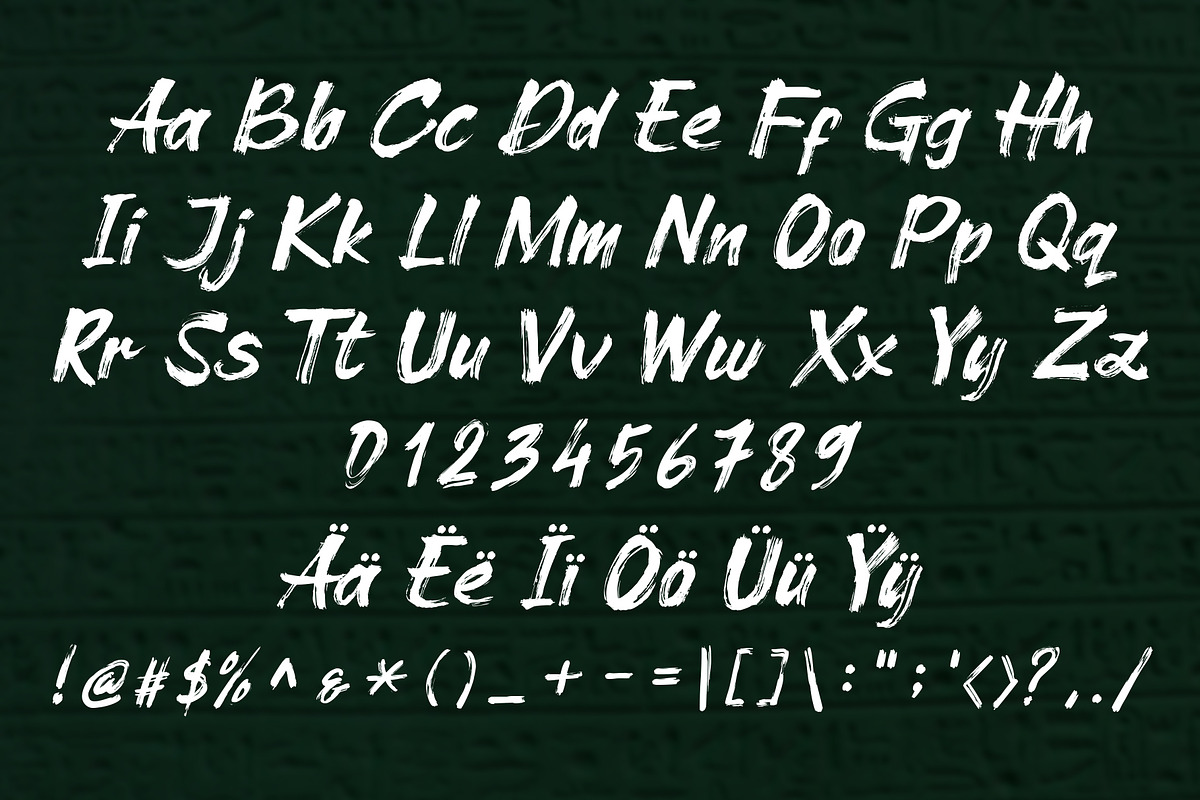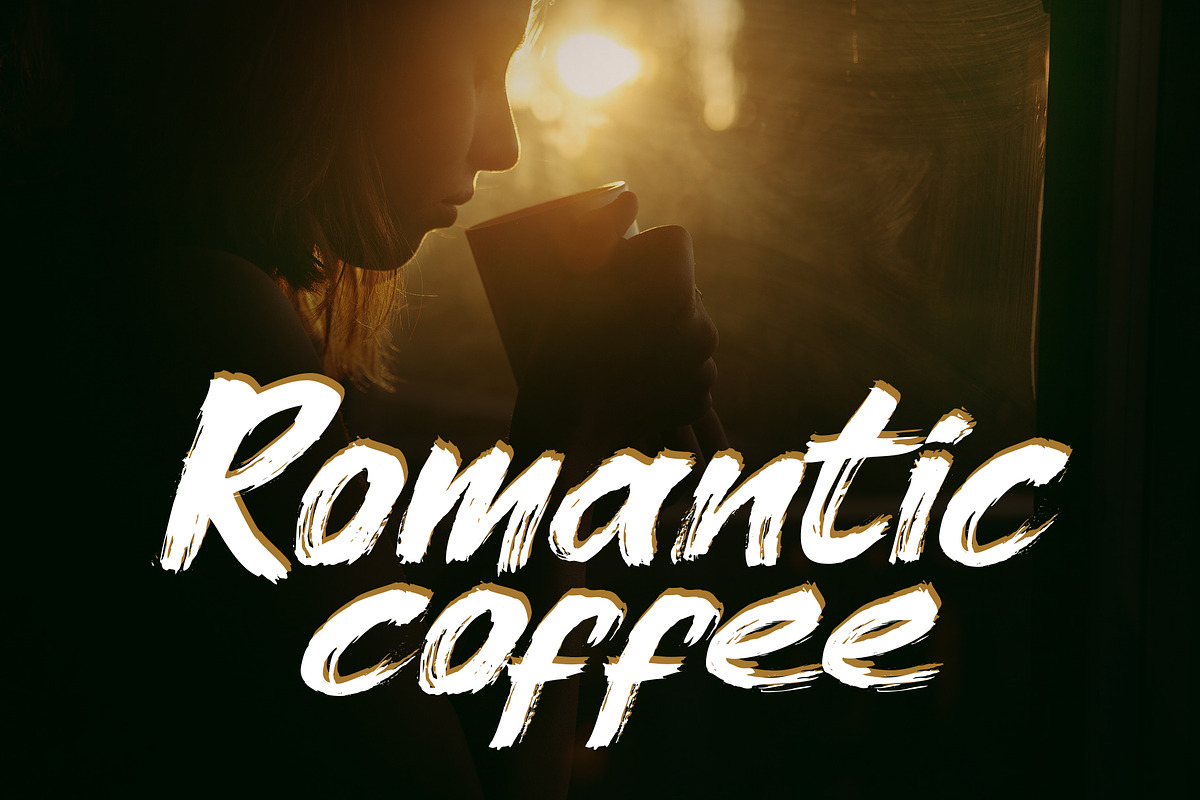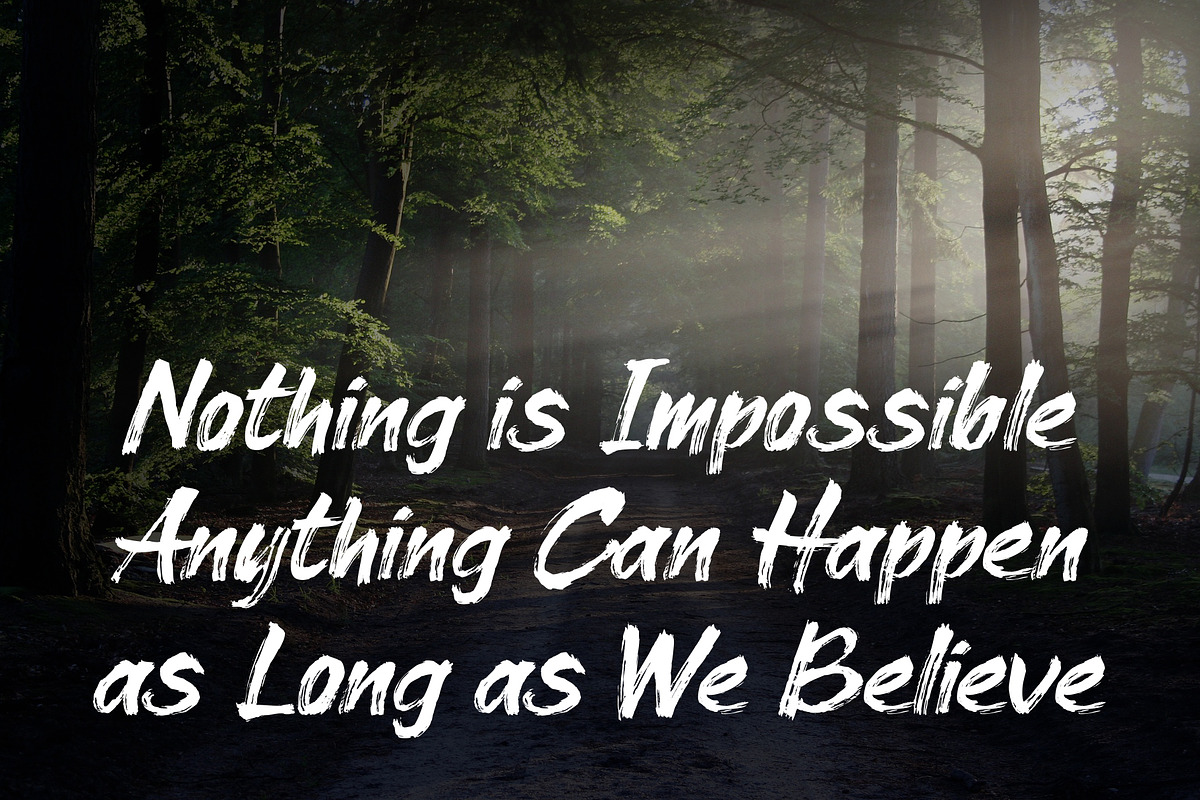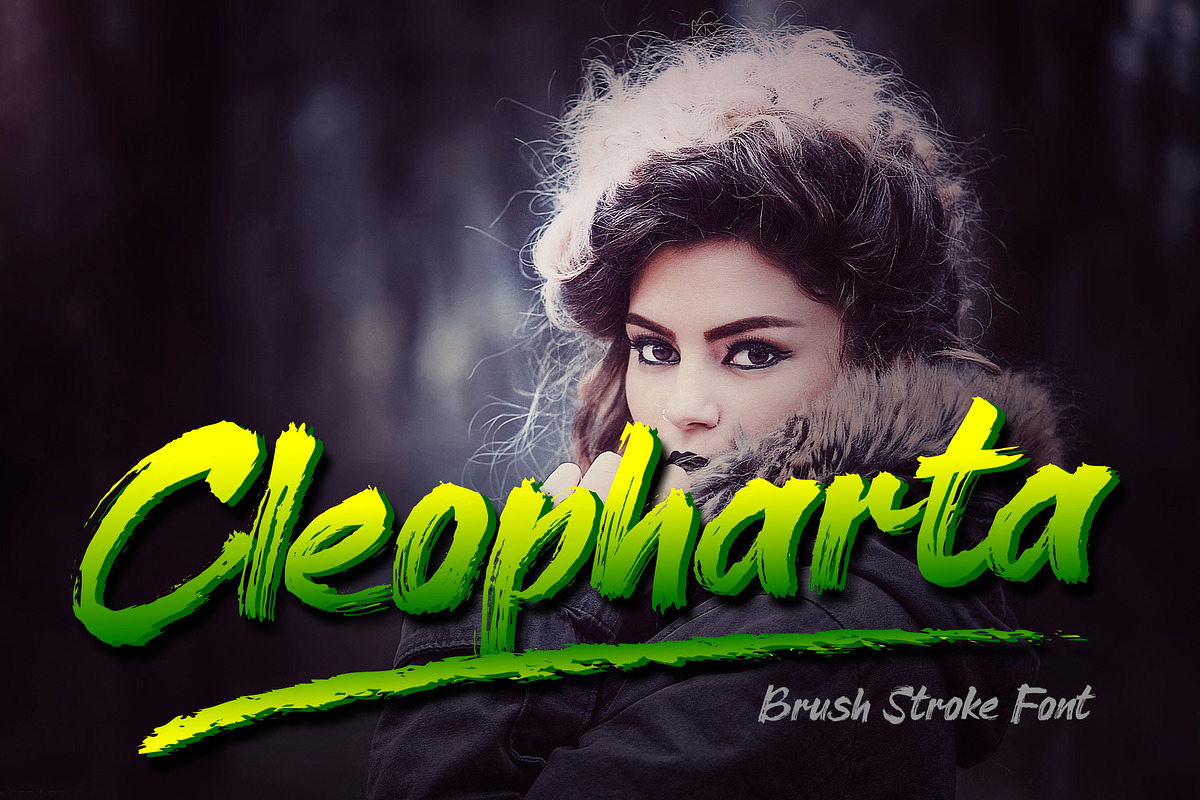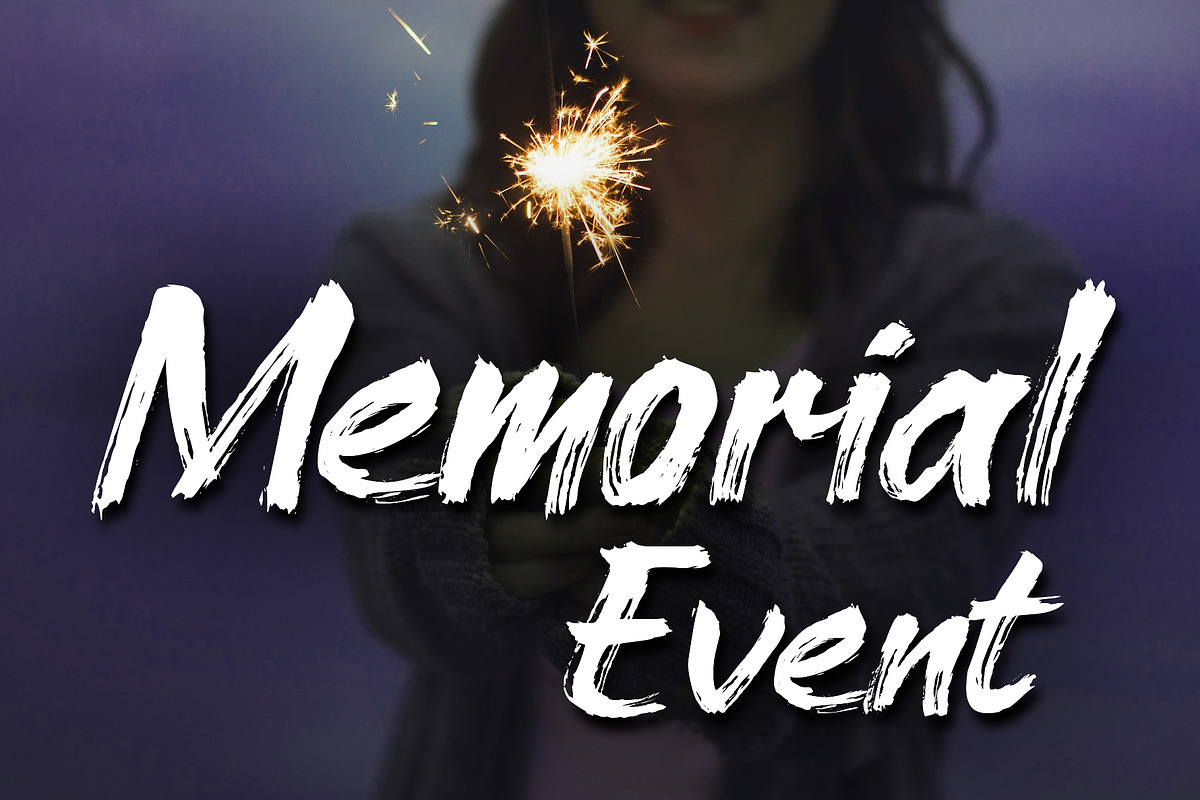
Cleopharta Font
Cleopharta font is a spontaneous brush stroke handwriting font. Include TTF and OTF files.
Why Cleopharta Font is worth a look
Cleopharta Font by cove703 fits naturally into Branding, posters, packaging, typography.